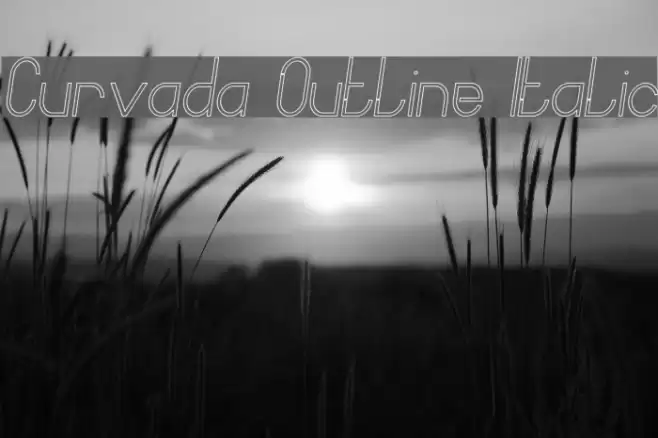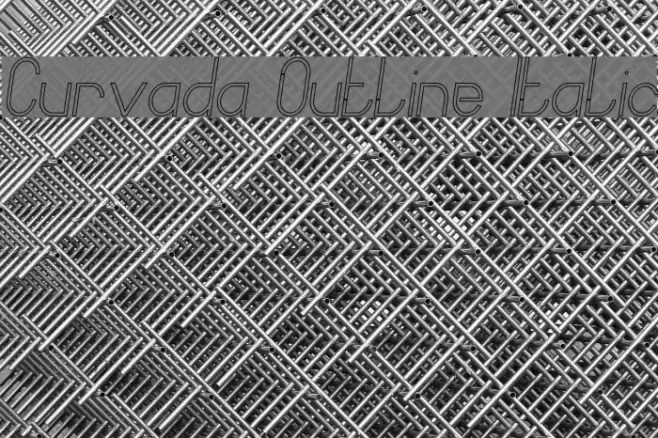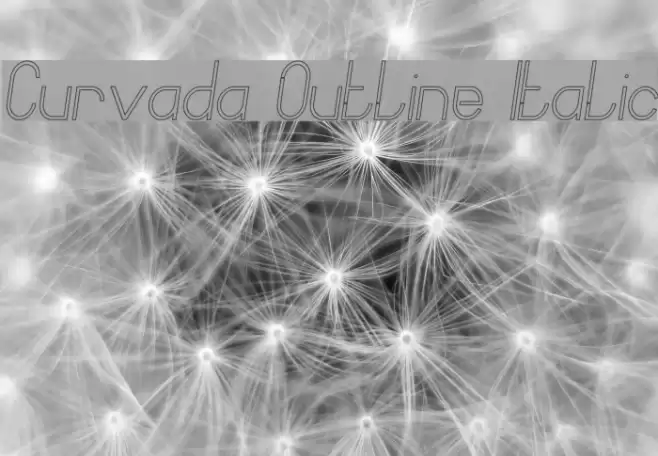
Curvada Outline Italic Font
Curvada Outline Italic Description
This font features a unique outline style with a modern and artistic flair. The characters are elongated and slightly italicized, giving them a dynamic and forward-moving appearance. The lines are clean and precise, creating a sense of elegance and sophistication. The uppercase letters are bold and commanding, while the lowercase letters maintain a consistent flow. Numbers and special characters are designed with the same attention to detail, ensuring uniformity across all elements. This font is perfect for projects that require a contemporary and stylish touch.
A modern, italicized outline font with elegant and dynamic characters from Uncategorized fonts.
- Proposed Projects: Ideal for branding, posters, modern art projects, and stylish invitations.